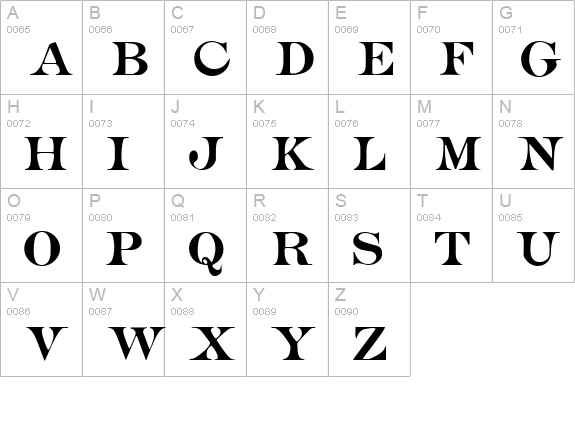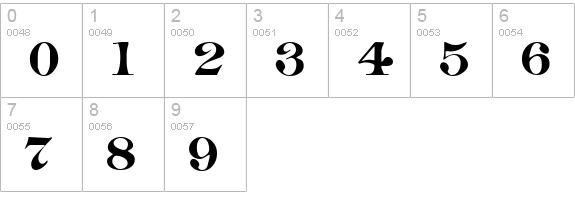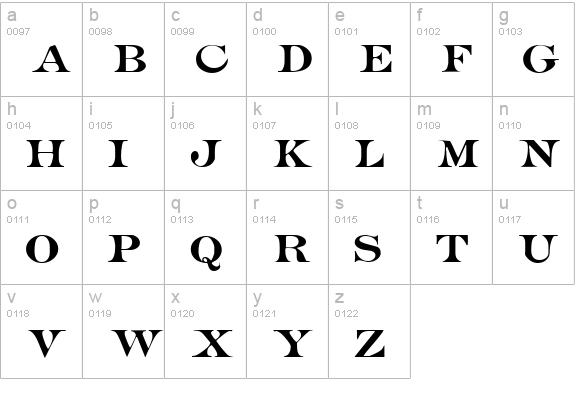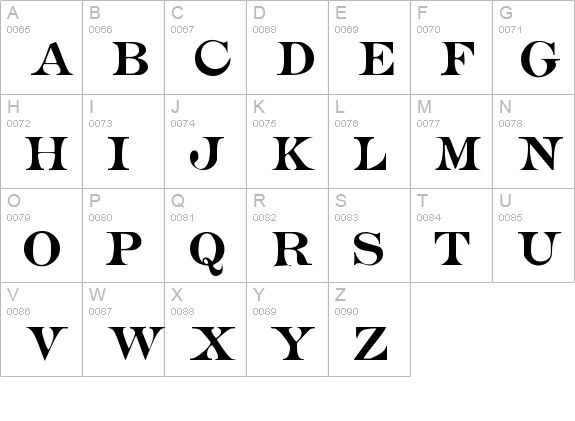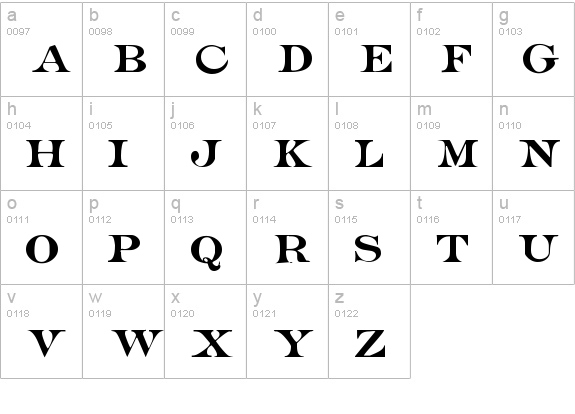
Adamantine Font Details
The Adamantine font is a modern and stylish typeface that exudes sophistication and elegance. Its sleek and clean lines make it perfect for a wide range of design projects, from branding to editorial layouts. The sharp edges and bold strokes of the Adamantine font give it a unique and eye-catching appearance that is sure to make your text stand out. Best of all, the Adamantine font is available for free download at FontsMarket.com. This means you can easily access this stunning font to enhance your designs without any cost. Whether you're working on a personal project or a professional assignment, the Adamantine font is a versatile and high-quality choice that will elevate your work to the next level. Download it today and add a touch of sophistication to your designs!